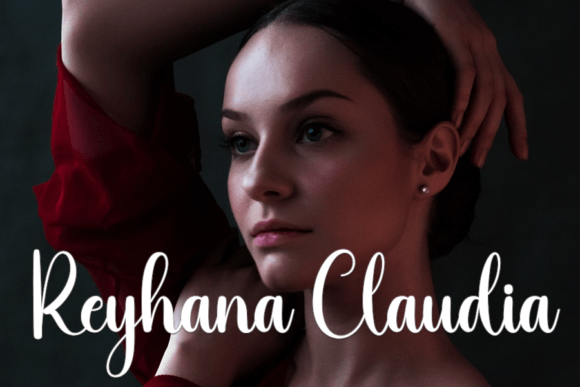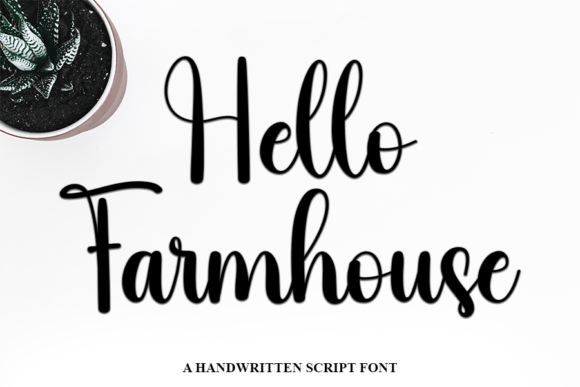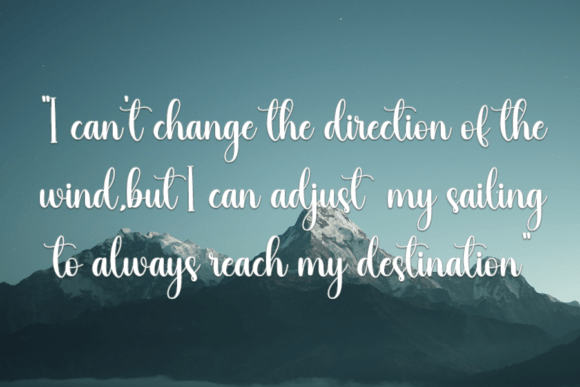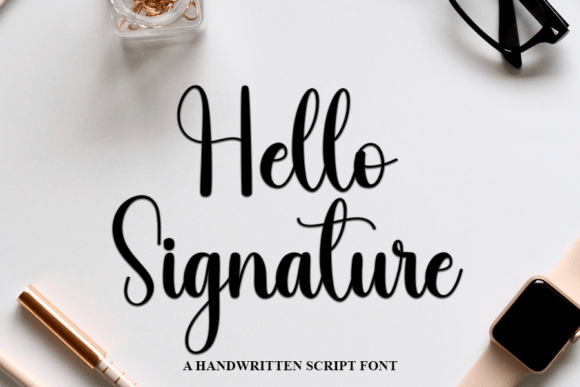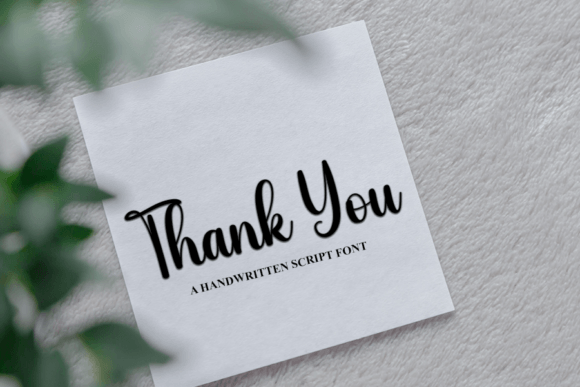
The Perfect Blend of Creativity and Style: Introducing Collage Font
Have you ever been working on a project, and suddenly, a spark of inspiration hits you? The colors, the shapes, the typography – everything comes together in a beautiful, cohesive piece. For designers, this moment is a thrill unlike any other. And for those who have been looking for the perfect tool to help them create such masterpieces, we’re excited to introduce the Collage Font.
This modern handwritten font is designed to add a touch of elegance and whimsy to any project. Whether you’re creating greeting cards, crafting digital designs, or making presentations, Collage Font has the potential to elevate your work to the next level. With its versatility and unique style, it’s no wonder why designers are falling in love with this font. And for those who are just starting out, Collage Font is a valuable resource to have in your toolkit.
Collage Font Key Features
- Unique Characteristics: The font features a unique, hand-drawn design with a mix of geometric and organic elements, making it perfect for creative and artistic applications.
Collage Font Review
As a designer, I was excited to dive into the world of Collage Font. This font is designed for creating visually appealing, layered text effects. Here’s my honest review.
- The layered text effect is indeed impressive. It creates a sense of depth and adds a touch of sophistication to any design.
- The font is highly customizable, allowing you to adjust the layering, spacing, and colors to fit your design needs.
- Collage Font is a great option for creatives looking to add a unique touch to their designs, from social media posts to marketing materials.
- The font can be quite overwhelming if not used judiciously. Over-layering can lead to a cluttered, difficult-to-read design.
- The customization options, while extensive, can be overwhelming for beginners. A more streamlined interface would be beneficial.
- Some characters may not render correctly in certain software or at smaller font sizes, which can be frustrating.
Overall, I think Collage Font is a great tool for designers looking to add some visual interest to their work. While it has its limitations, the potential for creative expression is vast. With practice and patience, you can unlock the full potential of this font and create truly stunning designs.
Tips for Getting the Most Out of Collage Font
For the best results, use Collage Font in conjunction with bold or italic styles to create visual interest. Experiment with different font sizes and colors to create a unique look. Use Collage Font in combination with other creative fonts to add texture and depth to your designs.
Collage Font is ideal for creative projects such as posters, flyers, and social media graphics. It’s also great for use in blog titles, headings, and other attention-grabbing text elements.